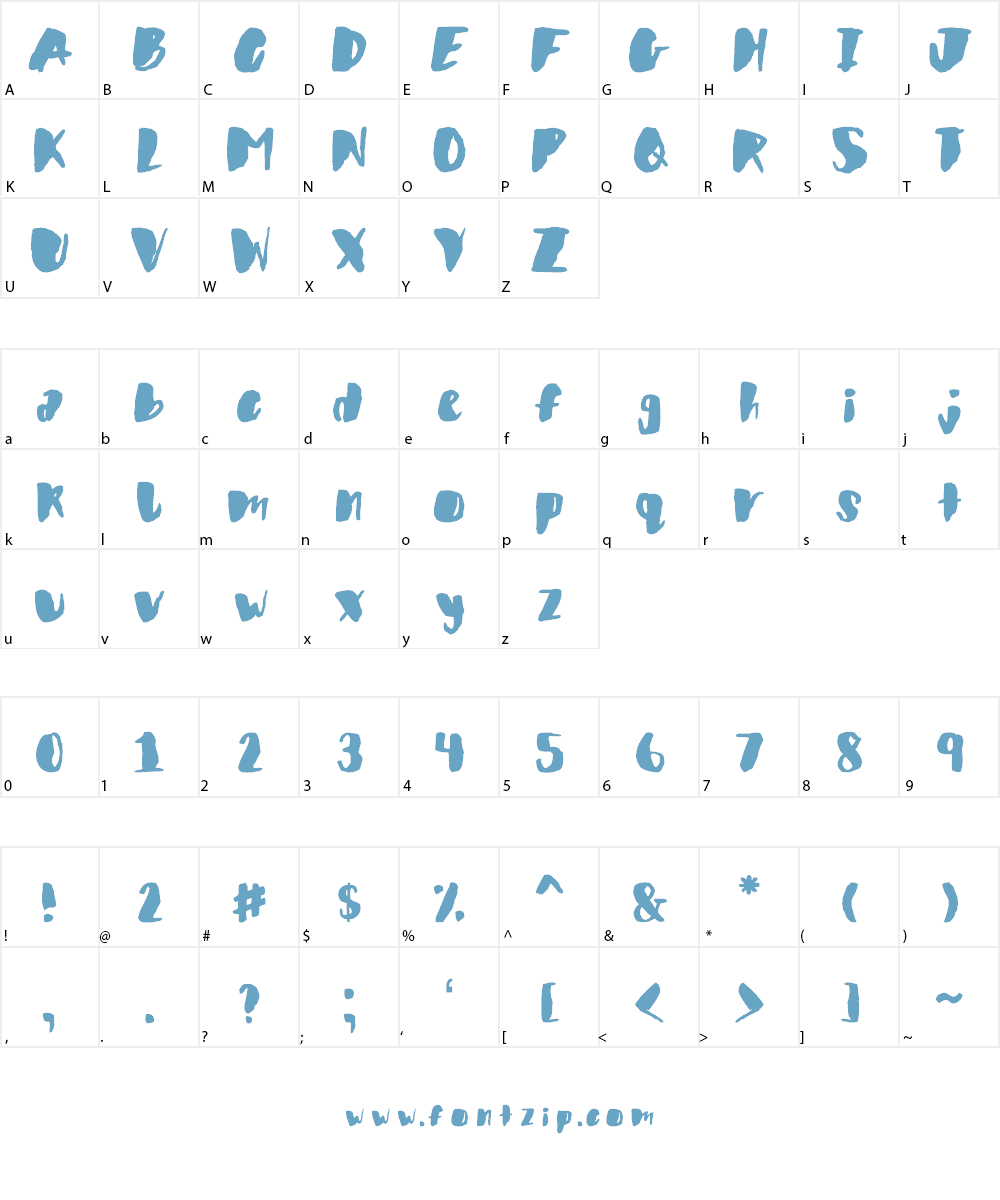
A hand brushed chunky typeface made up of upper and lowercase, numerals and punctuation characters. It was made with rustic designs in mind. For personal use only. Commercial licence available for $25 via paypal: